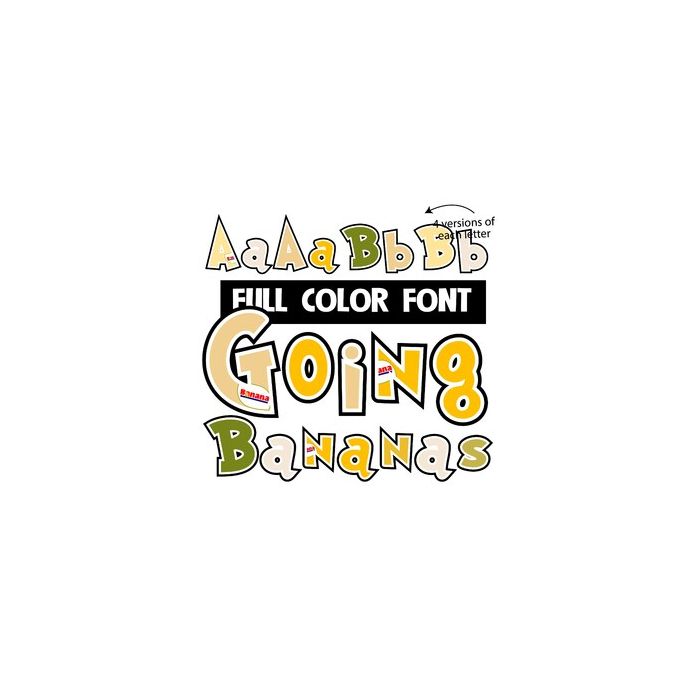
This full-color font features banana colors and an occasion banana sticker. There is an alt case with a second choice for each upper and lowercase letter that you can access through Silhouette's glyph map.